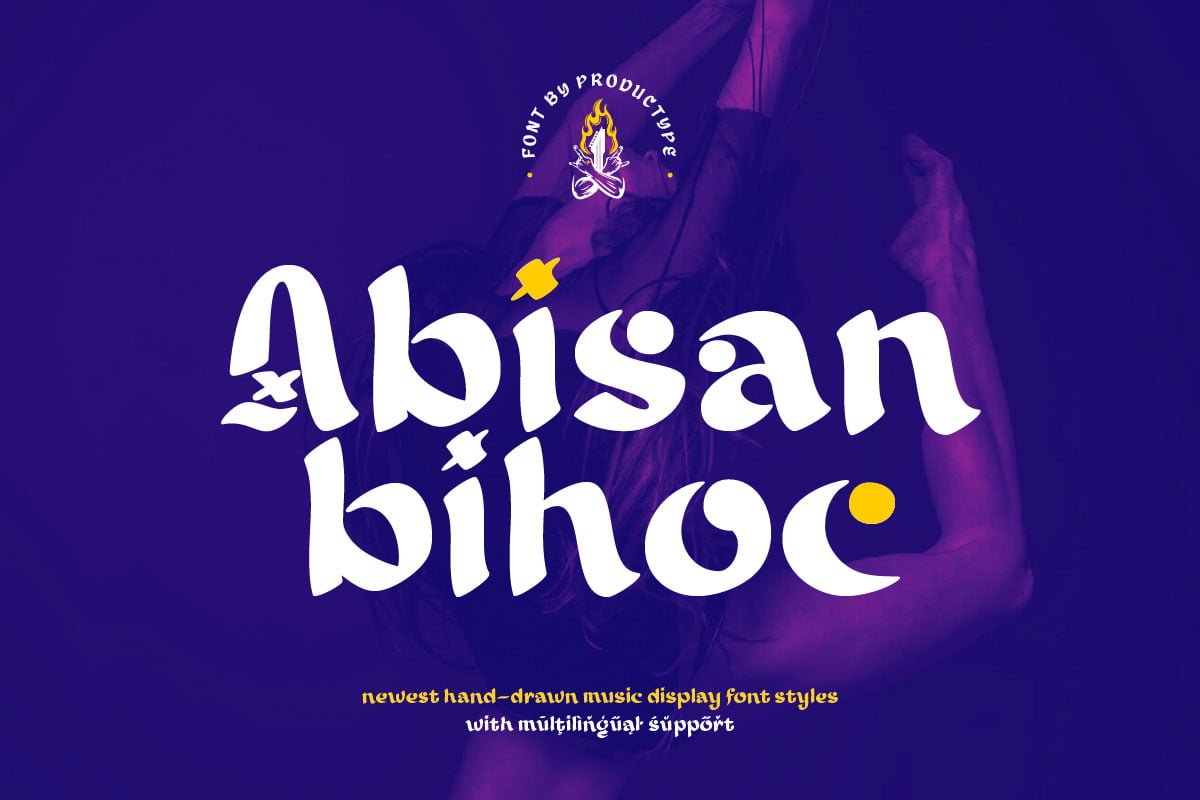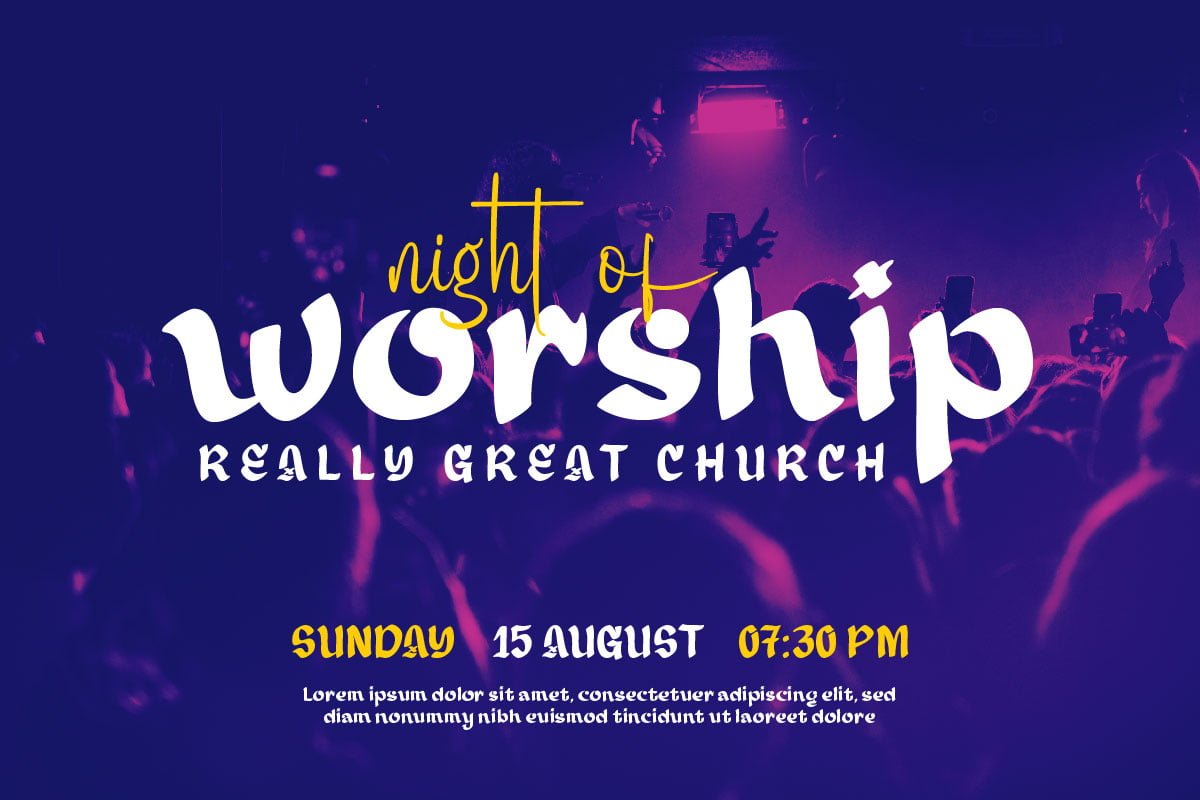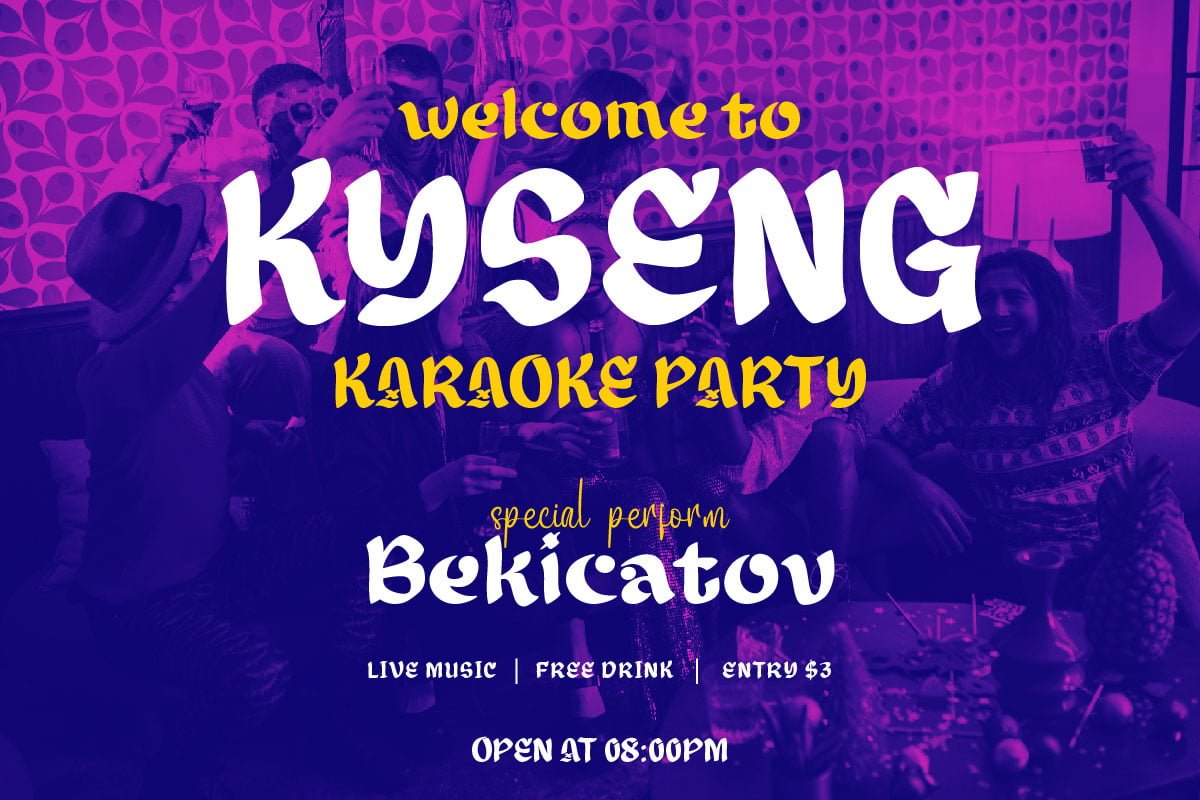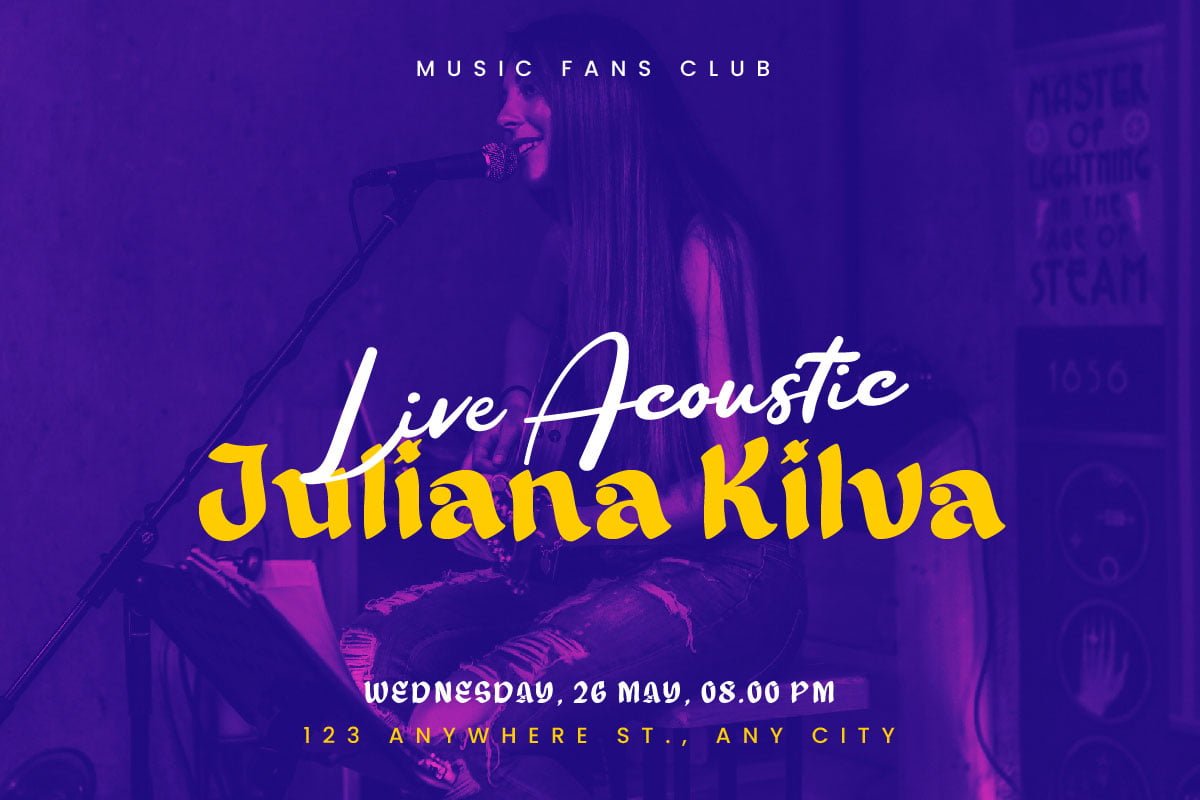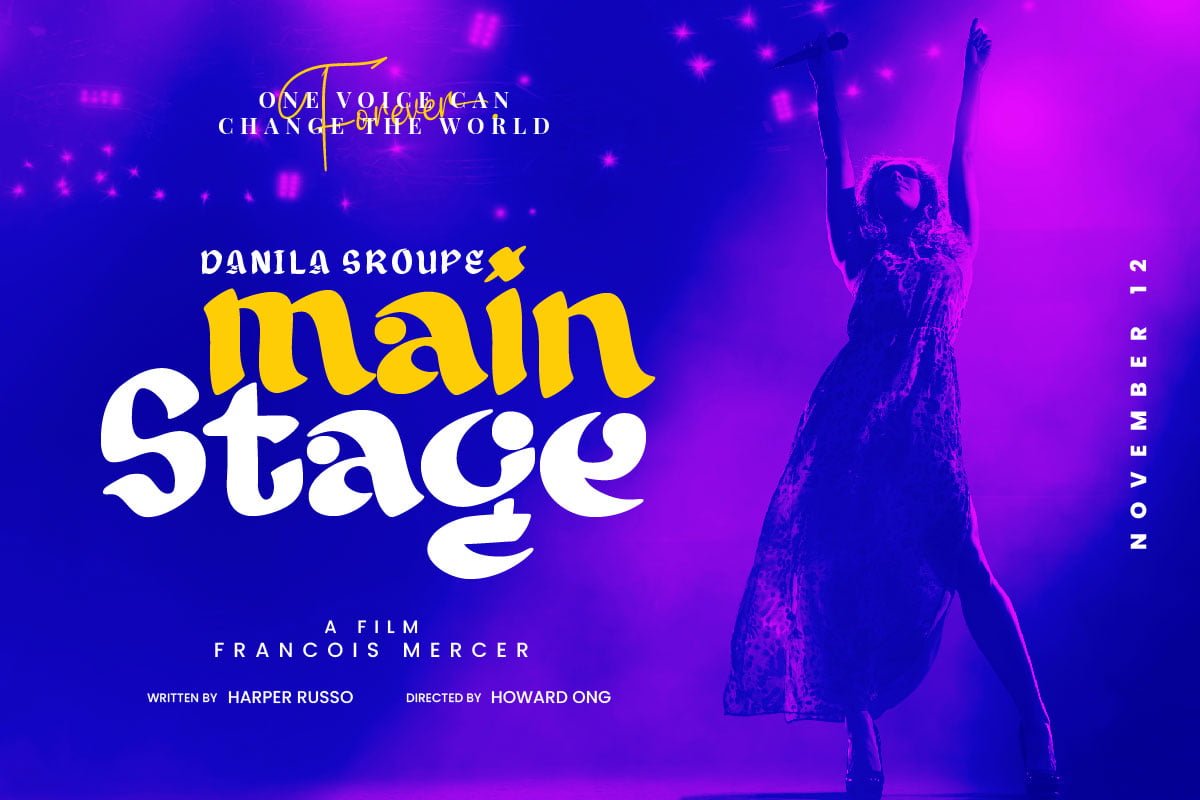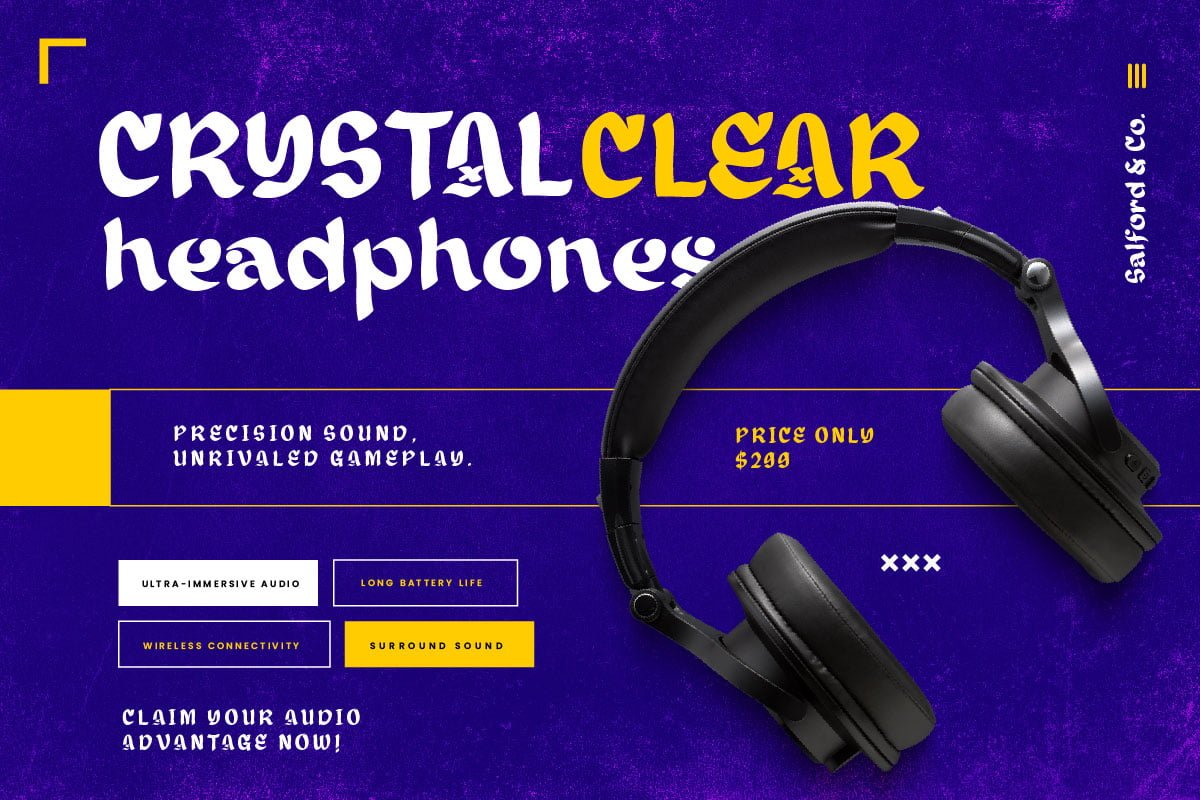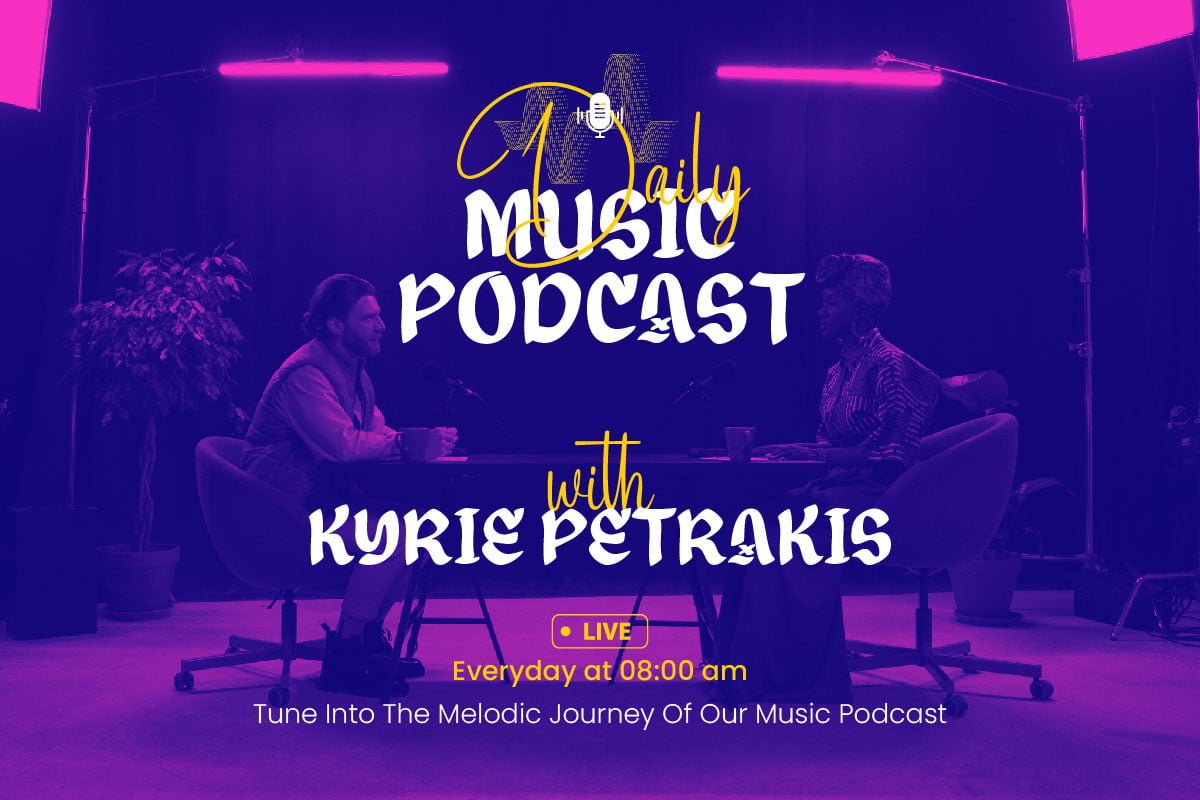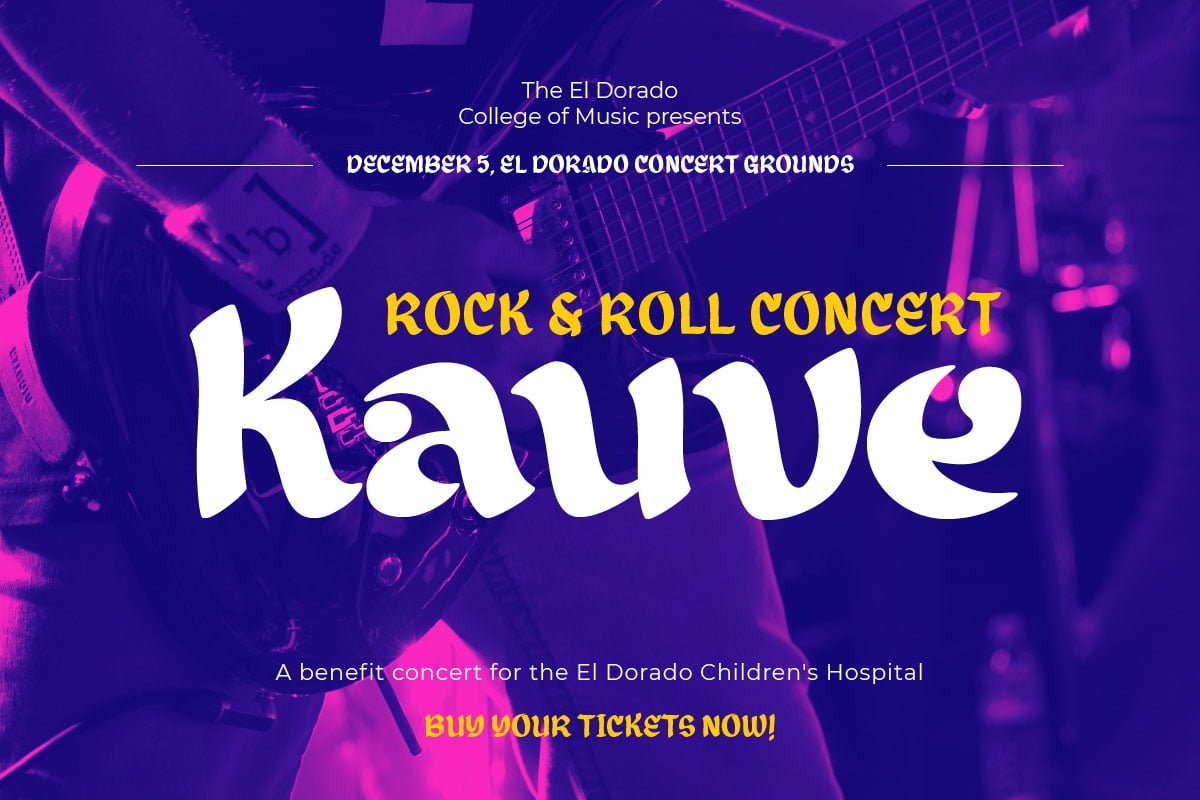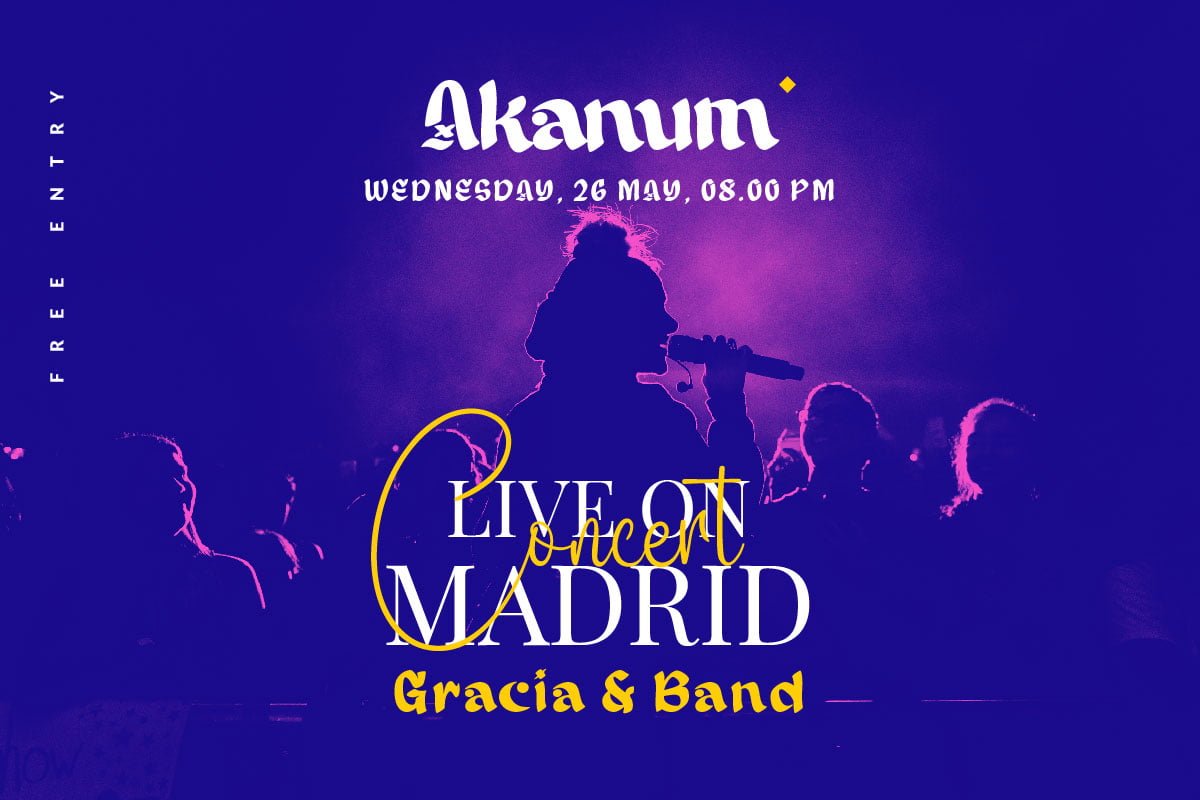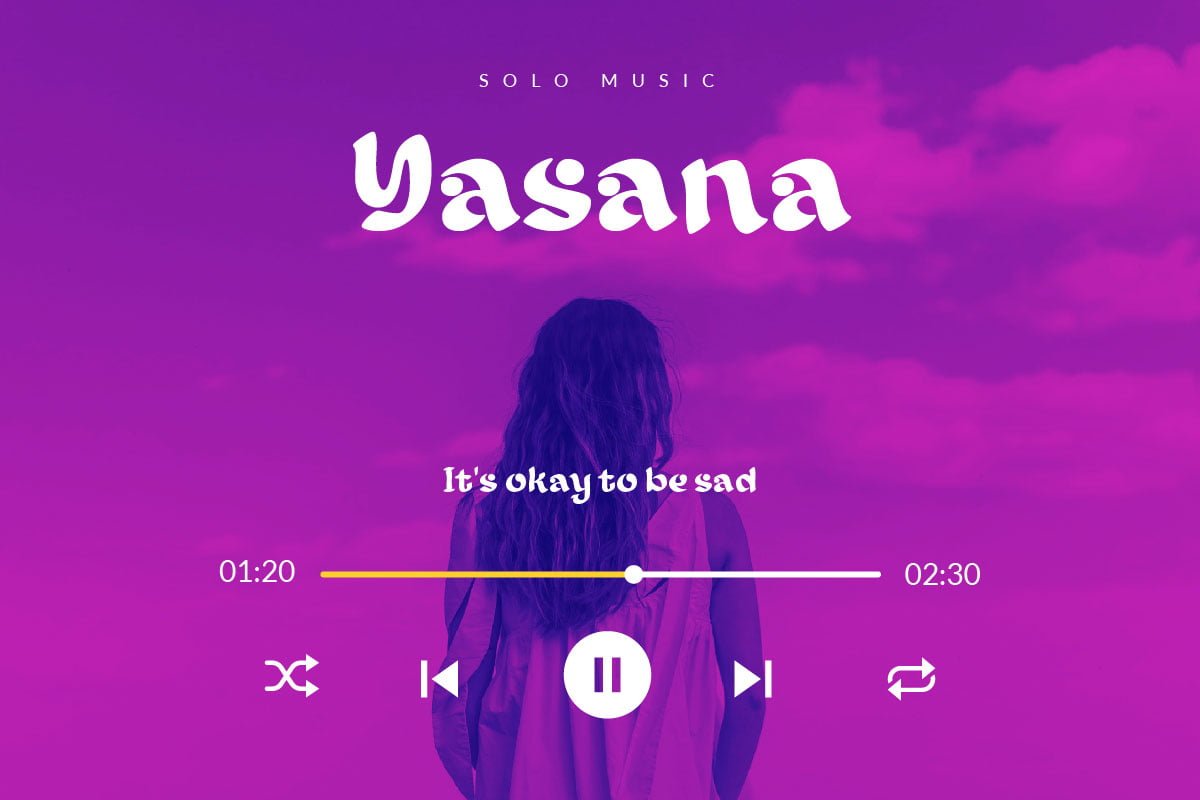
5. Abisan Bihoc – Display Font
Abisan Bihoc – Display Font
Say hello to Abisan Bihoc, a display font specifically designed to create immersive musical atmospheres. With the beauty and uniqueness of each character, this font brings a musical feel to your projects.
Each letter in Abisan Bihoc is designed to reflect the spirit of the music, providing an inspired and electrifying look.
Abisan Bihoc is the ideal choice for projects that want to convey deep musical nuances. Whether you’re designing an album cover, concert poster, or music promotional material, this font provides a unique musical touch.